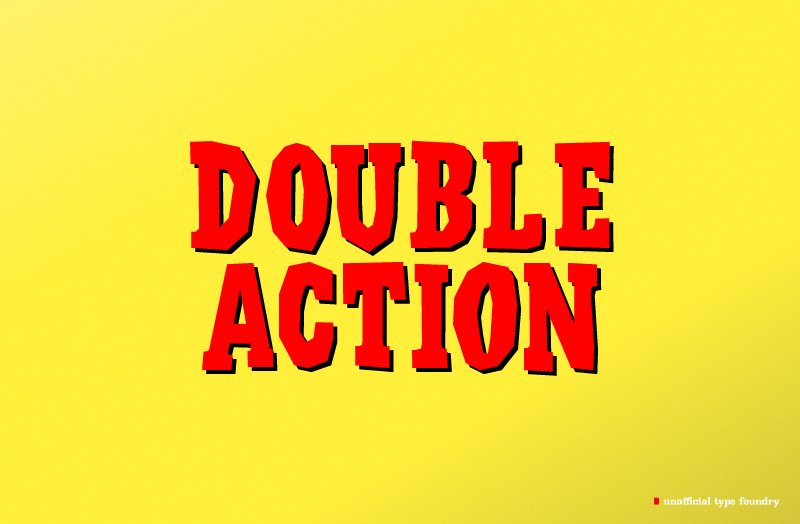
| Font name: | Double Action |
| Categories | Fancy, Western |
| Author: | unofficial type foundry |
| Note by unofficial type foundry | |
Double Action is a Western-themed display typeface featuring only uppercase letters�yet each character comes with an alternate version, accessible through uppercase and lowercase inputs. This gives every word a touch of unpredictability and grit. What makes Double Action truly unique is its built-in auto-ligature feature: repeating letters are automatically swapped with their alternates, breaking the monotony and adding a hand-crafted, distressed feel. Ideal for posters, games, or any project that calls for rugged, vintage flair with a dynamic twist. |